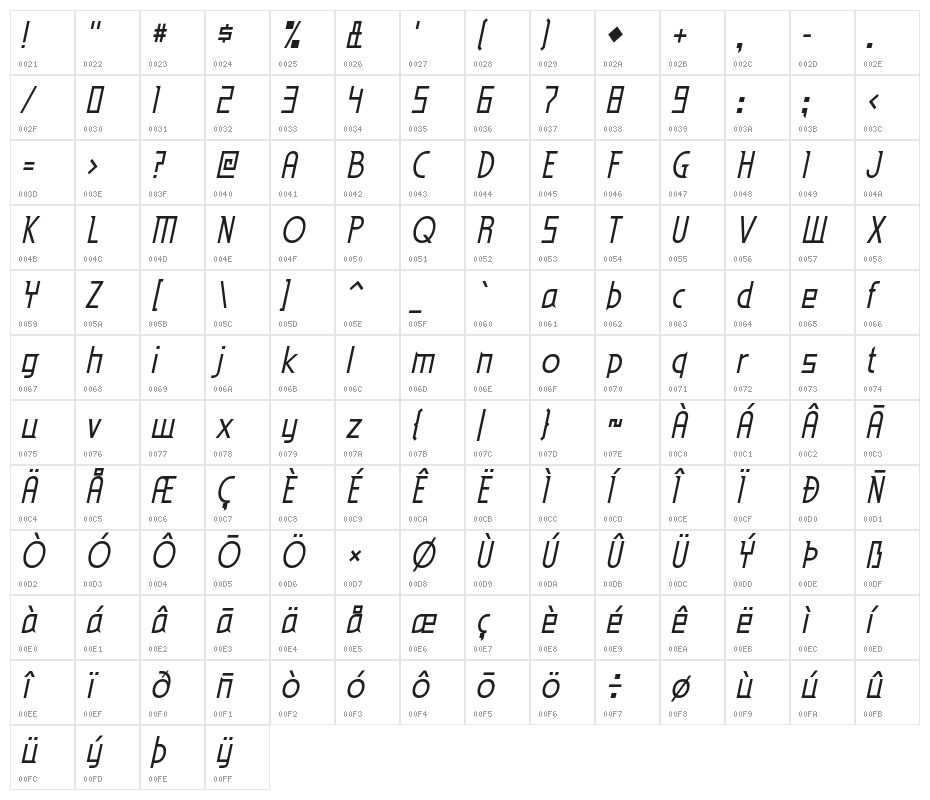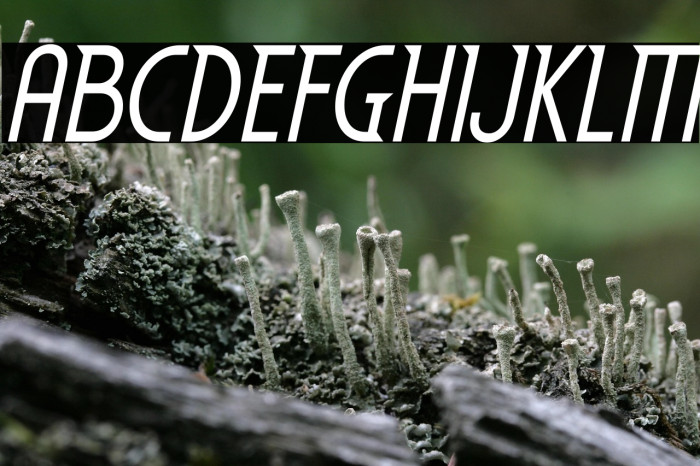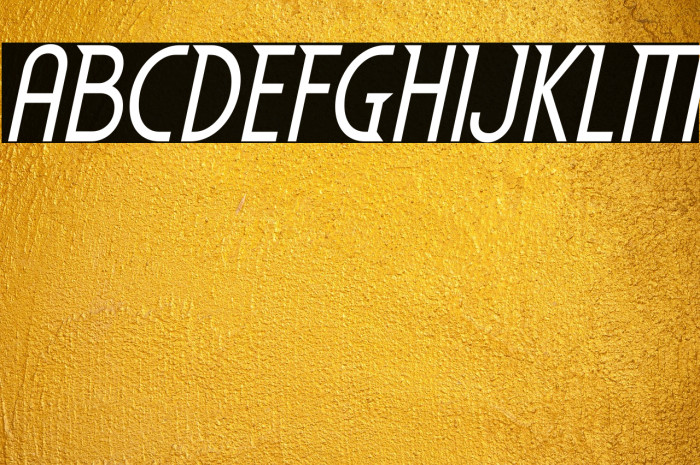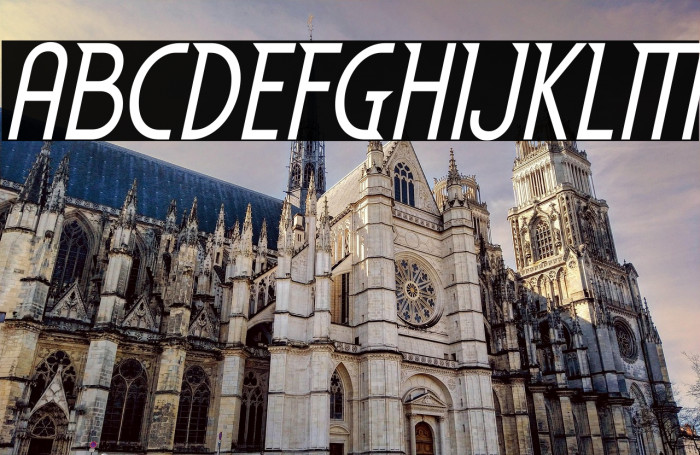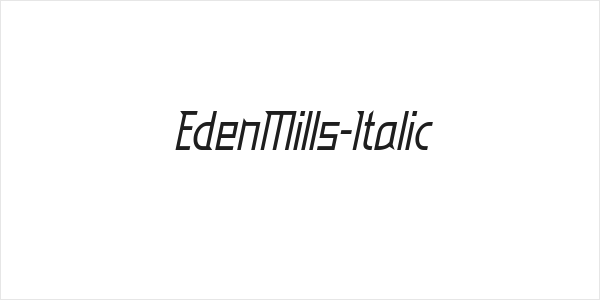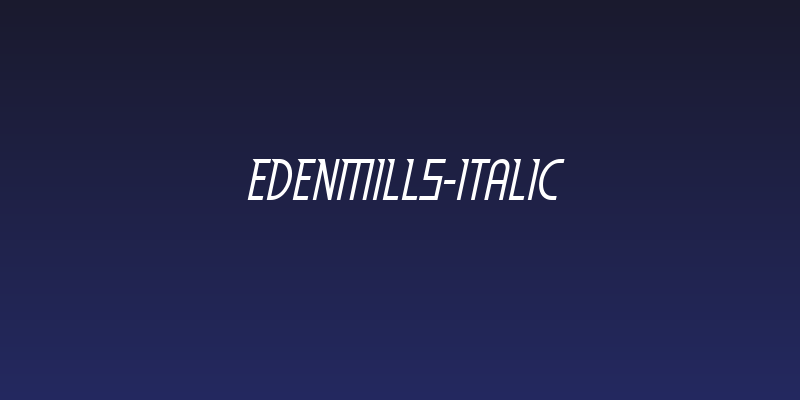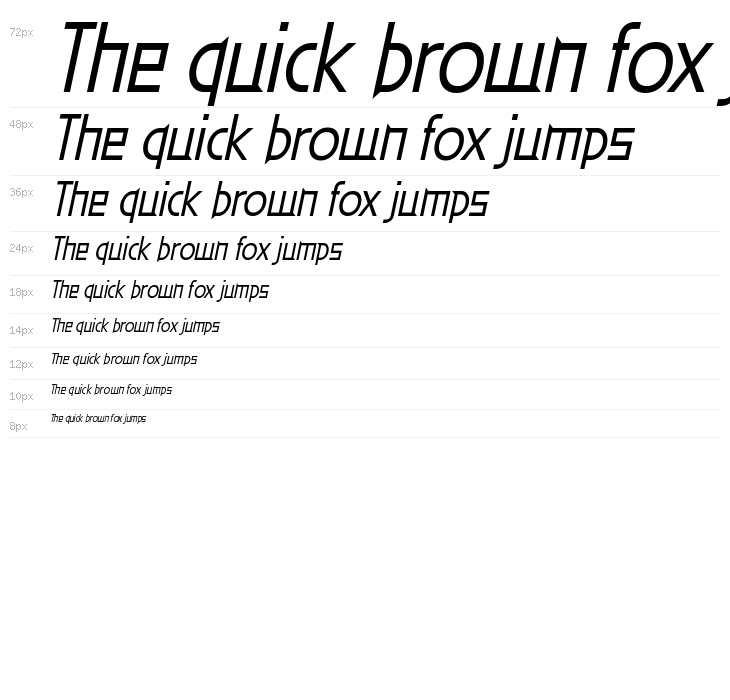
EdenMills-Italic Font
EdenMills-Italic Description
This font features a sleek, italicized design with a modern and futuristic appeal. The characters are slightly condensed, giving it a streamlined look. The strokes are consistent in width, providing a uniform appearance across all characters. The uppercase letters are tall and narrow, while the lowercase letters maintain a similar style with a slight slant, enhancing the italic effect. The numerals are distinct and align well with the overall style, ensuring readability. Special characters are designed to match the font's aesthetic, making it versatile for various uses.